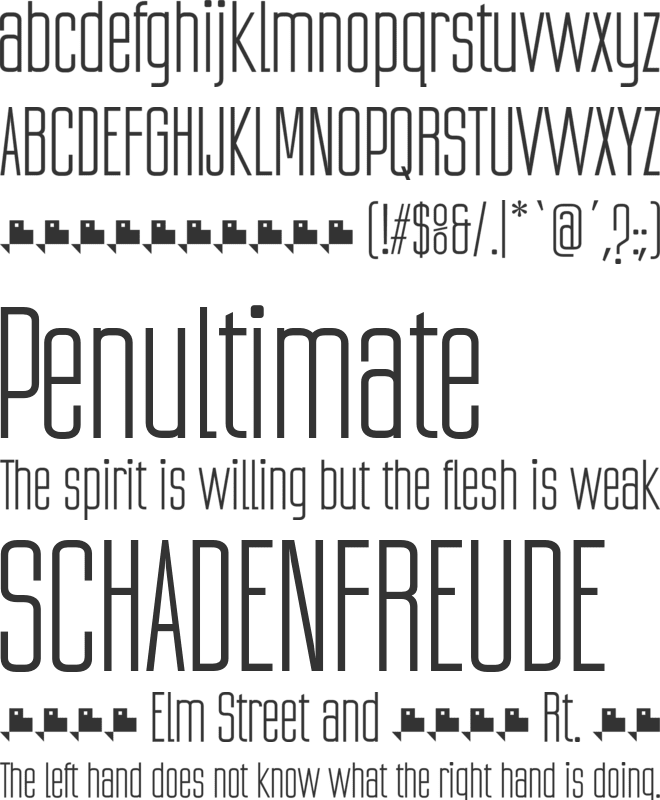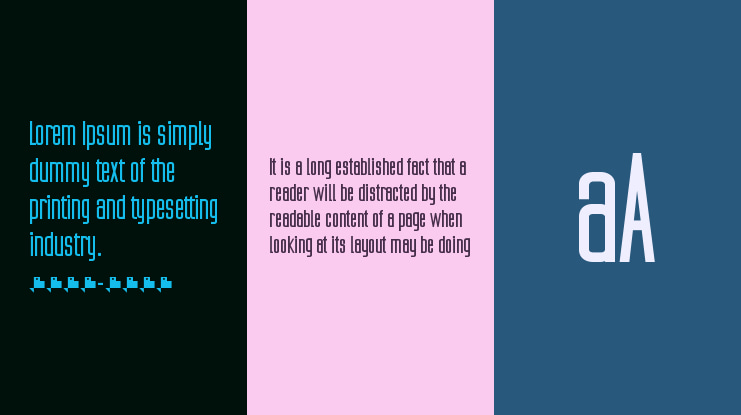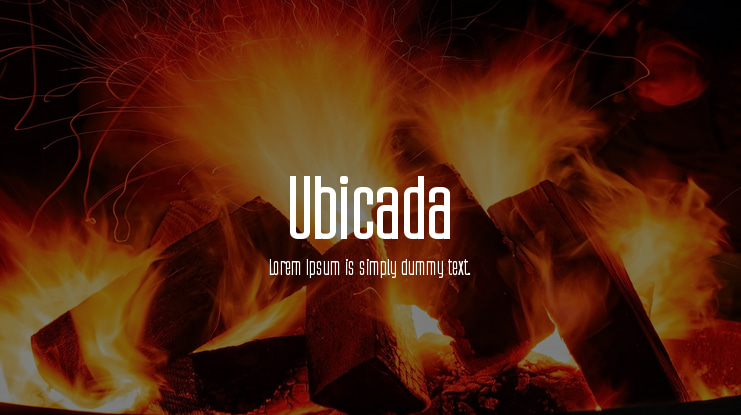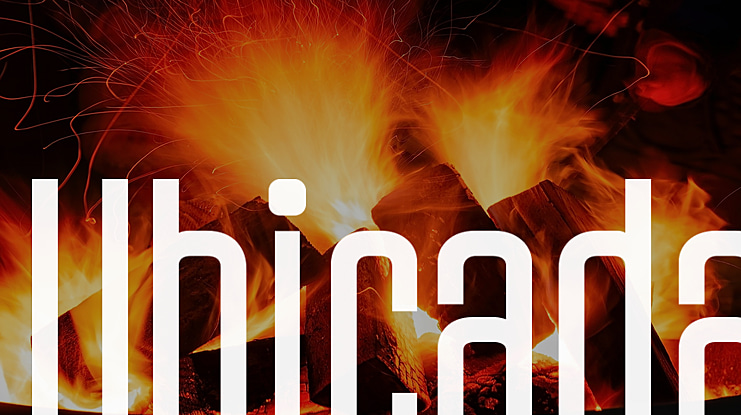
Ubicada Font Family
deFharo
Ubicada is a condensed and geometric sans serif typeface in version regular & Bold
The commercial version has 600 glyphs (Latin Extended) Open Type includes functions for standard ligatures, alternate letters, numbers and money symbols in small caps, old style numbers, numerators, denominators, fractions, and the Greek alphabet. =========== Ubicada es una tipografía geométrica condensada y sans serif en versión regular y negrita.
La versión comercial tiene 600 glifos (Latin Extended), incluye funciones Open Type para ligaduras estándar, letras alternativas, números y símbolos monetarios en versalitas, Números estilo antiguo, numeradores, denominadores y fracciones y el alfabeto griego. ===========